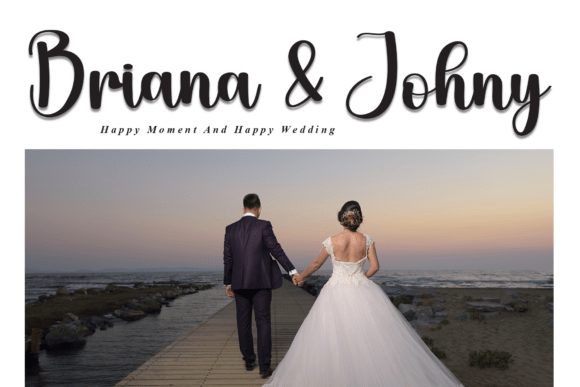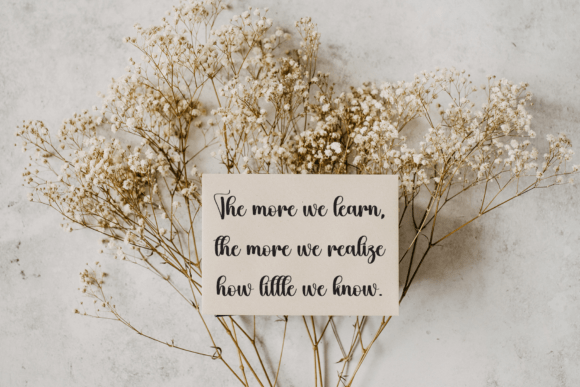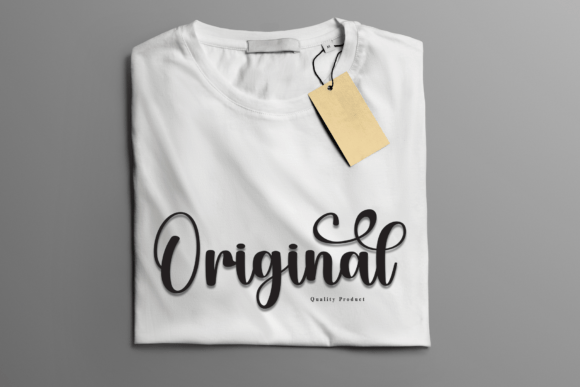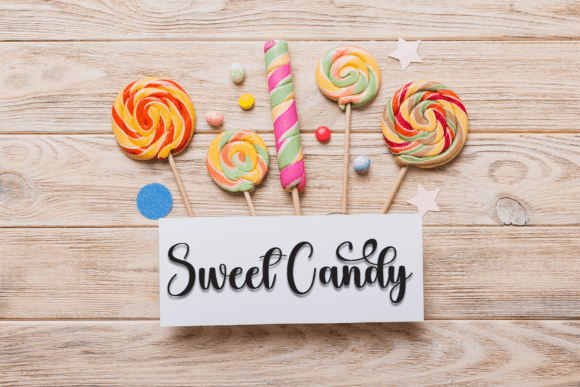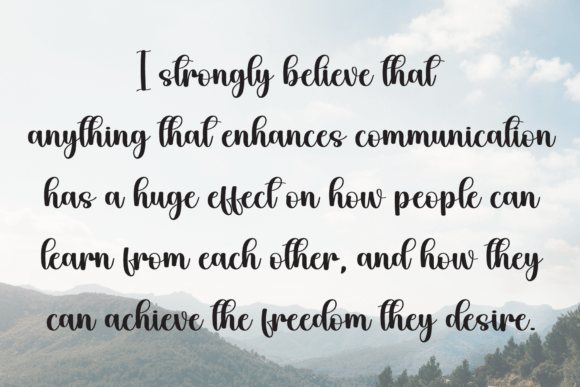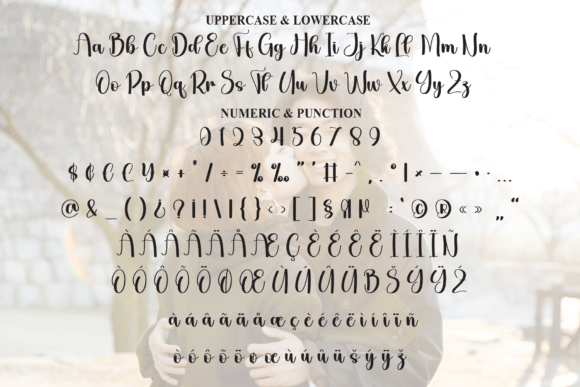
Introducing Darling Lovely Font: Elevate Your Designs with Elegance and Charm
In the world of typography, a font can make all the difference in transforming a design from ordinary to extraordinary. Darling Lovely Font is a stunning example of a stylish handwritten script font that has captured the hearts of designers and crafters alike. This beautiful typeface seamlessly blends elegance with a modern flair, making it an ideal choice for a wide range of creative projects.
The Unique Charm of Darling Lovely Font
Darling Lovely Font boasts flowing strokes and organic curves that exude warmth and sophistication. Its unique charm lies in its ability to add a personal, refined touch to any design, making it perfect for projects that require a dash of elegance and charm. Whether you’re working on branding, invitations, social media graphics, or any other creative endeavor, this font is sure to impress.
Key Features of Darling Lovely Font
- Stylish Handwritten Script: Darling Lovely Font features a beautiful, handwritten script that adds a touch of personality to your designs.
- Elegant and Modern: This font combines classic elegance with a modern flair, making it versatile and suitable for a wide range of projects.
- Flowing Strokes and Organic Curves: The font’s flowing strokes and organic curves create a sense of movement and fluidity, adding warmth and sophistication to your designs.
- Perfect for Branding and Invitations: Darling Lovely Font is ideal for branding, invitations, and social media graphics, where a personal and refined touch is essential.
Why Choose Darling Lovely Font?
With so many fonts available, why choose Darling Lovely Font? Here are just a few reasons why this typeface stands out:
- Unique and Eye-Catching: Darling Lovely Font is a unique and eye-catching typeface that will set your designs apart from the rest.
- Versatile: This font is versatile and can be used for a wide range of projects, from branding and invitations to social media graphics and more.
- Easy to Read: Despite its elegant and cursive nature, Darling Lovely Font is easy to read, making it perfect for body text and headlines.
- High-Quality: This font is designed with high-quality and precision, ensuring that it looks great in any size or resolution.
How to Use Darling Lovely Font in Your Designs
Using Darling Lovely Font in your designs is easy and straightforward. Here are a few tips to get you started:
- Pair it with Other Fonts: Darling Lovely Font pairs well with other fonts, especially sans-serif fonts like Arial, Helvetica, or Open Sans.
- Use it for Headlines and Titles: This font is perfect for headlines and titles, where its elegance and charm can shine.
- Add it to Your Branding: Use Darling Lovely Font as part of your branding identity, including your logo, business cards, and website.
- Experiment with Colors and Textures: Don’t be afraid to experiment with different colors and textures to add depth and interest to your designs.
Darling Lovely Font is a stunning and versatile typeface that can elevate your designs to new heights. Its unique charm, elegance, and modern flair make it perfect for a wide range of creative projects. Whether you’re a designer, crafter, or DIY enthusiast, this font is sure to become a favorite in your collection. So why wait? Get creative with Darling Lovely Font today and add a touch of elegance and charm to your designs!